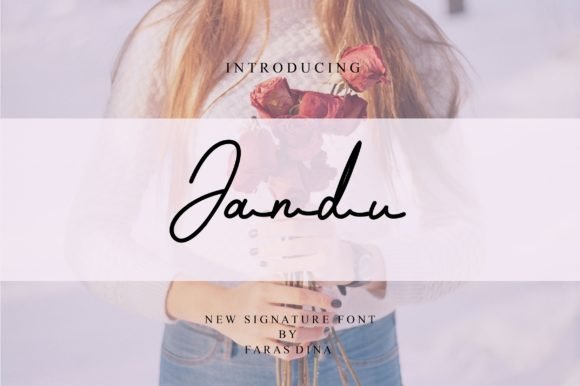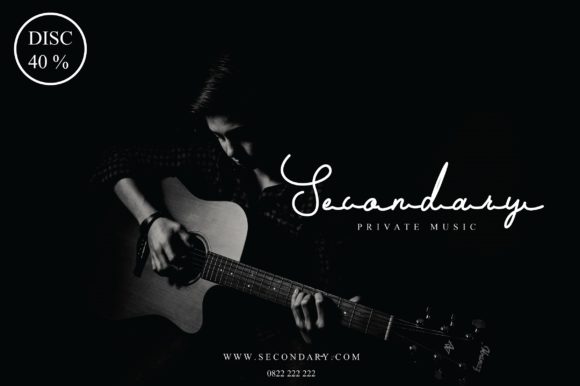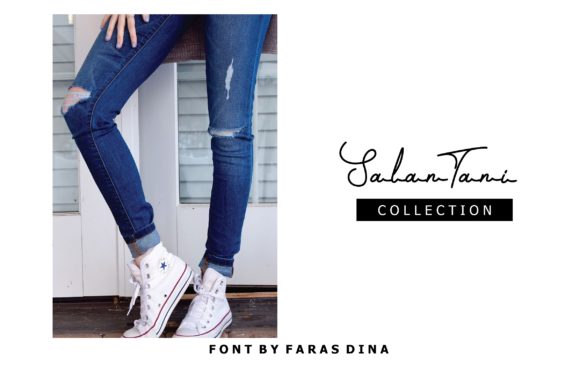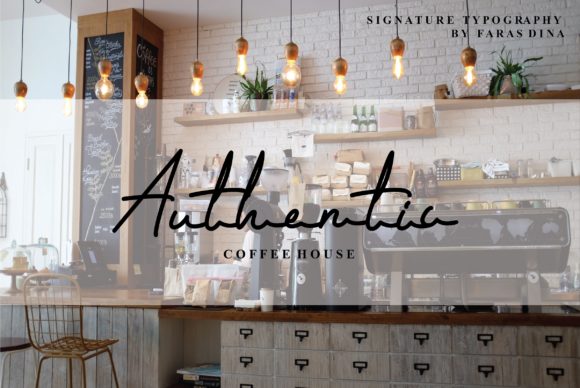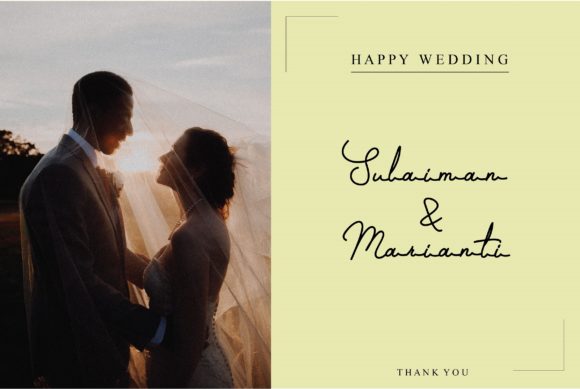
Unleash Your Creativity with Jandu Signature Font
Have you ever found yourself lost in the moment, camera in hand, capturing the perfect sunset or the smile of a loved one? That’s the essence of Jandu Signature Font – a modern handwritten font inspired by picture-perfect moments that we all strive to capture.
Jandu Signature Font is designed to bring a personal touch to your designs, making them stand out from the crowd. With its elegant and fluid lines, this font is perfect for adding a touch of whimsy and personality to your work. Whether you’re a graphic designer, illustrator, or simply a creative enthusiast, Jandu Signature Font is a valuable addition to your toolkit.
Jandu Signature Font Key Features
- Font Family: Jandu Signature Font is a unique, custom-designed font family.
- Unique Characteristics: Jandu Signature Font features a distinctive, handwritten style with subtle flair and texture, adding a touch of personality to any design.
Jandu Signature Font Review
As a designer, I’ve had the opportunity to work with a wide range of fonts, and the Jandu Signature Font is one that caught my attention. Here’s my honest review:
The Jandu Signature Font is a beautiful, elegant script font that’s perfect for adding a touch of sophistication to your designs. Here are some of its strengths:
- ✨ Elegant, flowing lines that make it perfect for invitations, weddings, and other special occasions.
- ✨ Highly customizable, with a wide range of OpenType features and ligatures.
- ✨ Works well in both print and digital formats.
While the Jandu Signature Font is a great addition to any designer’s toolkit, it’s not without its limitations:
- ⚠️ May be too ornate for some designs, making it difficult to read.
- ⚠️ Not as versatile as some other fonts, which may limit its use in certain contexts.
Overall, I think the Jandu Signature Font is a great choice for designers who want to add a touch of elegance to their work. While it may have some limitations, its unique style and high level of customization make it a valuable addition to any font collection.
Tips for Getting the Most Out of Jandu Signature Font
Use Jandu Signature Font for headings and titles to add a touch of elegance and sophistication.
Pair Jandu Signature Font with a clean and simple background to let the text stand out.
Experiment with different font sizes and styles to achieve a unique look.
Jandu Signature Font is ideal for:
Business cards and letterheads
Menu designs and restaurant branding